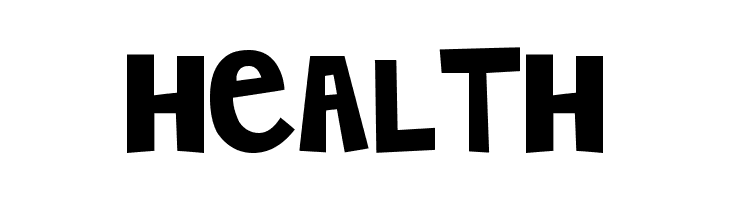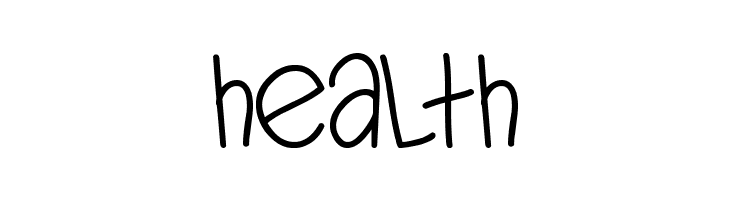
A whimsical, hand-drawn font with a playful and informal style.
A playful, hand-drawn font with bold, rounded characters and a whimsical style.
A bold, expressive handwritten font with a graffiti-like style.
A bold, playful comic-style font with a lively and exaggerated appearance.
A playful, bold font with a whimsical and dynamic style.
A playful, bold, hand-drawn font with irregular shapes and varying stroke widths.
A playful, hand-drawn font with thin, elongated characters and a whimsical style.
A playful, hand-drawn font with a festive, cheerful vibe.